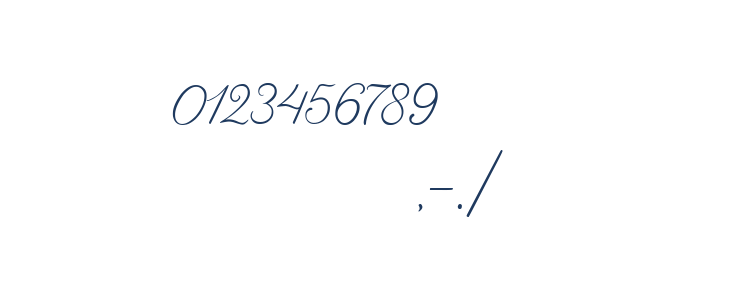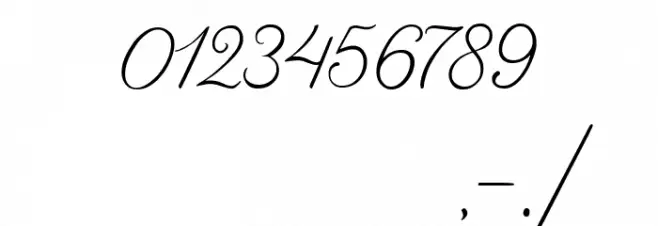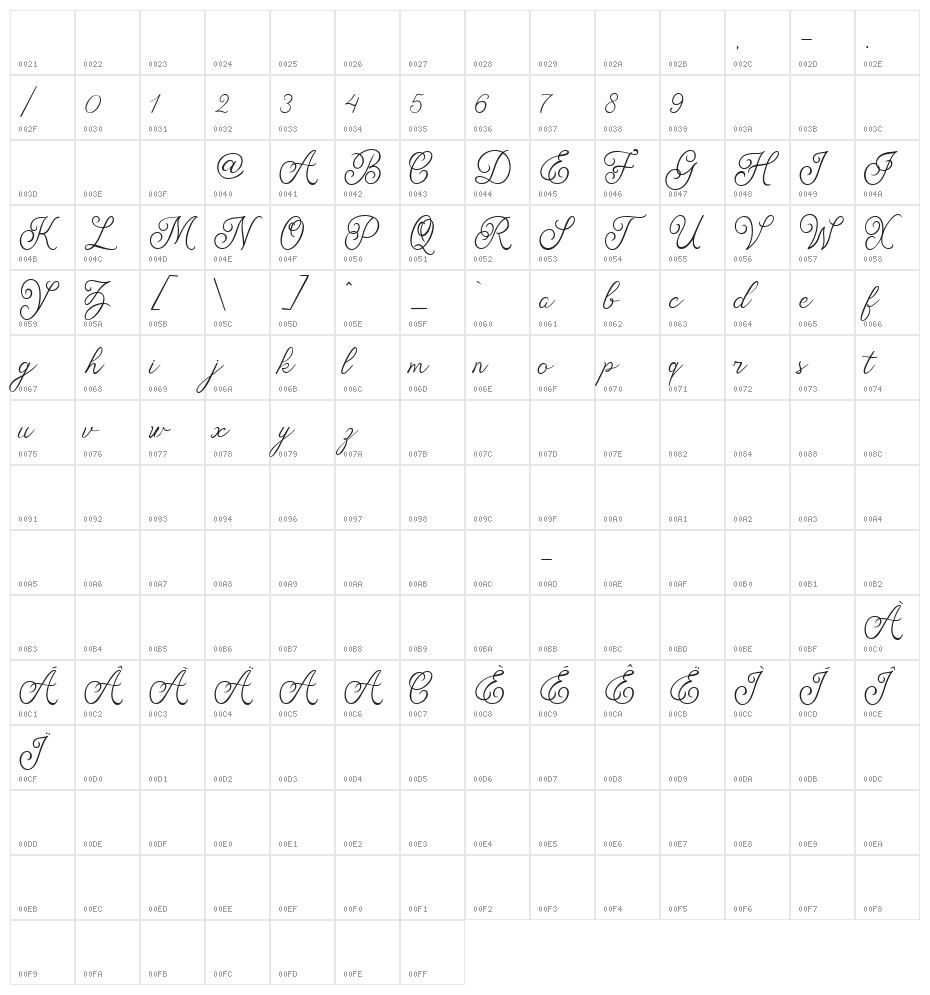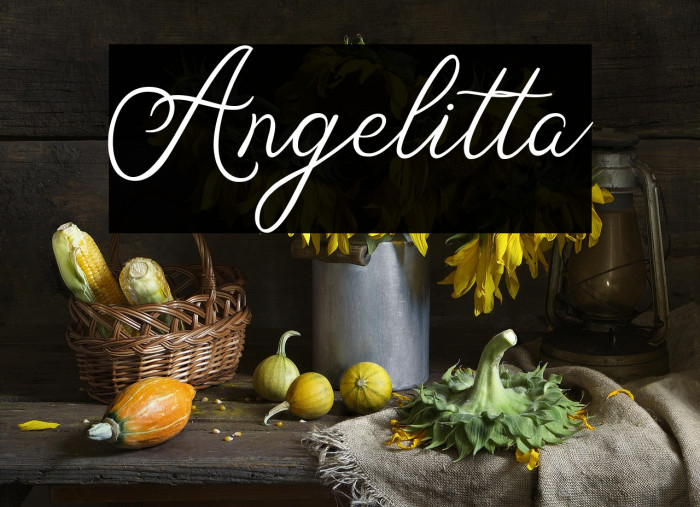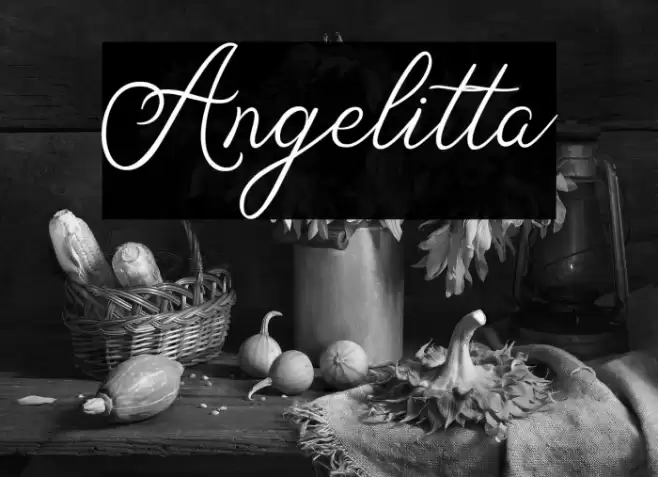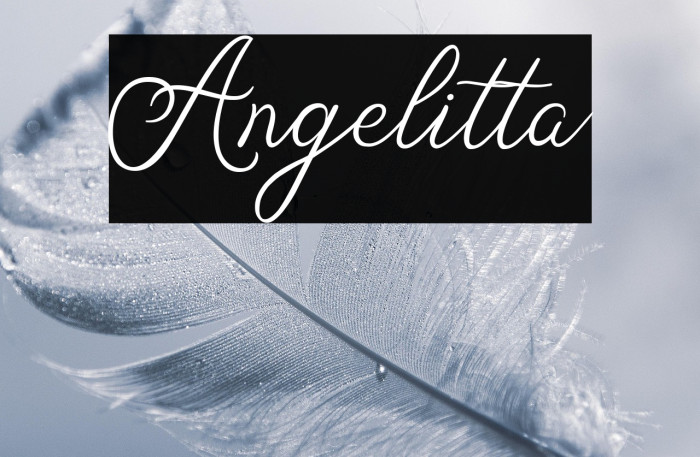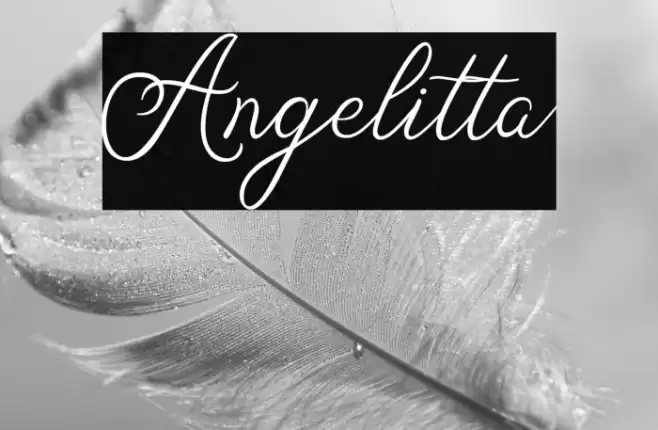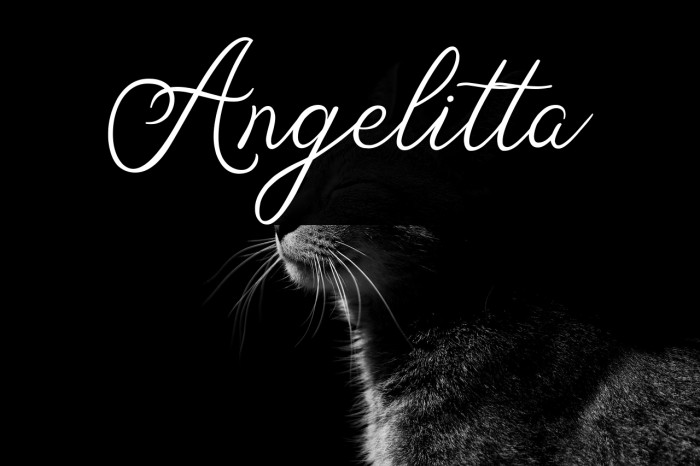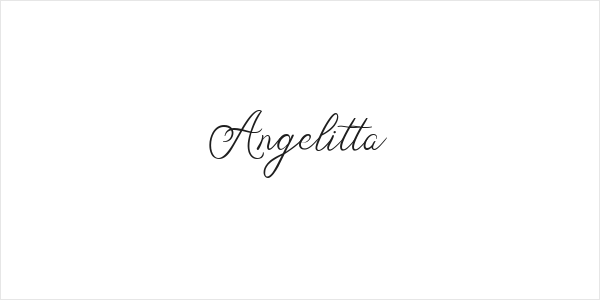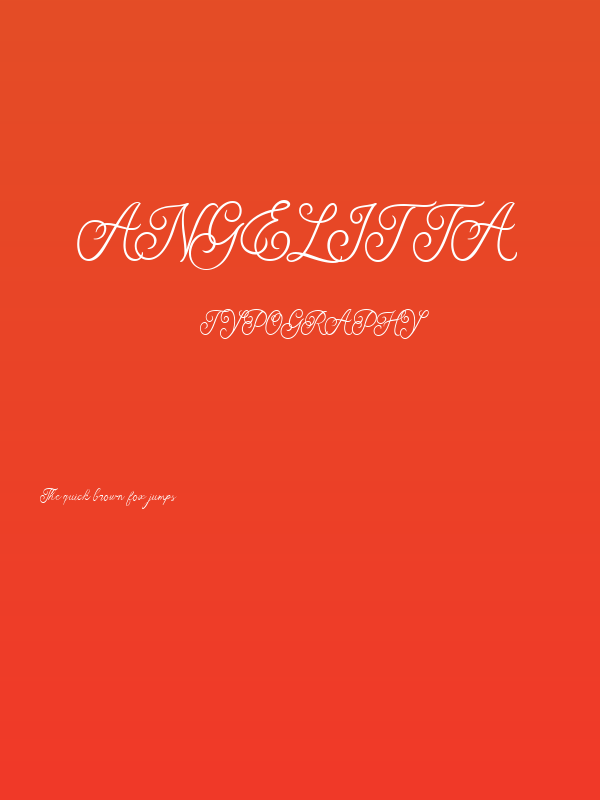
Angelitta Font
Angelitta Description
This elegant script font features beautifully flowing, interconnected letters with a classic and sophisticated appeal. The uppercase letters are ornate and decorative, with intricate loops and swirls that add a touch of luxury and refinement. The lowercase letters maintain a graceful continuity, enhancing readability while preserving the font's artistic flair. The numerals are consistent with the script style, offering a cohesive look across all characters. Special characters are thoughtfully designed to complement the overall aesthetic, making this font ideal for projects that require a touch of elegance and class.
| Proposed Projects | Ideal for wedding invitations, elegant branding, luxury packaging, and high-end product labels. |